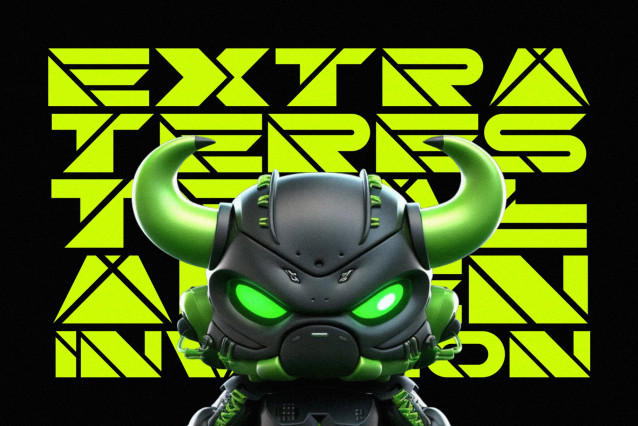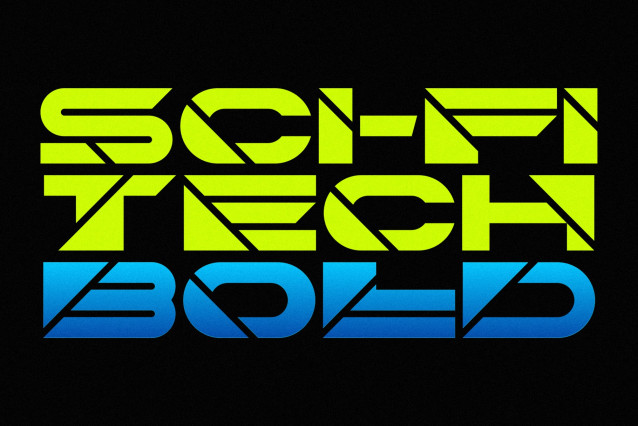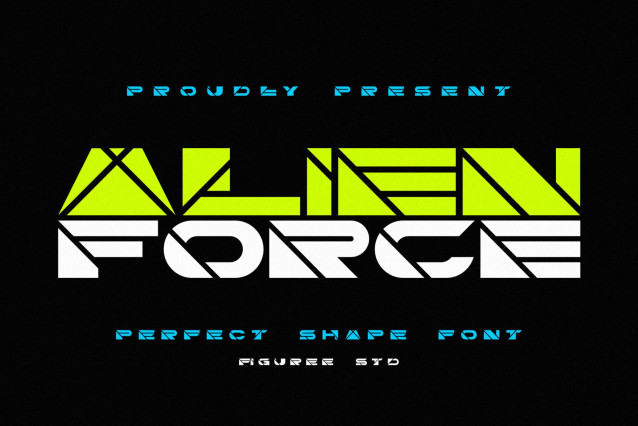
Alien Force Font
Alien Force Font: Typography shapes how audiences feel about your brand. When you need strength, structure, and a futuristic edge, Alien Force – Perfect Shape Font is the answer. Built with bold geometry and precise symmetry, this perfect shape font is designed for impactful logos, posters, and digital branding.
From sci-fi concepts to esports visuals, Alien Force delivers a modern identity that’s as memorable as it is professional.
Perfect Shape Font with Futuristic Identity
Alien Force sets itself apart from ordinary typefaces. Each character in this perfect shape font is carefully engineered to reflect balance, strength, and innovation. Its futuristic vibe makes it perfect for technology startups, esports logos, or sci-fi movie posters.
Every curve and line is intentional, giving designers a typeface that is both bold and legible. Alien Force ensures your typography speaks with authority.